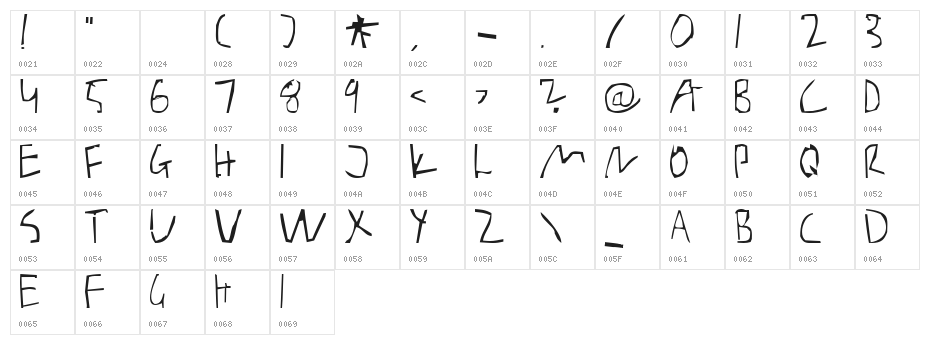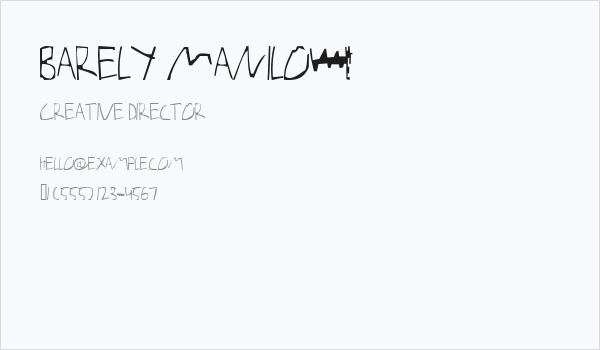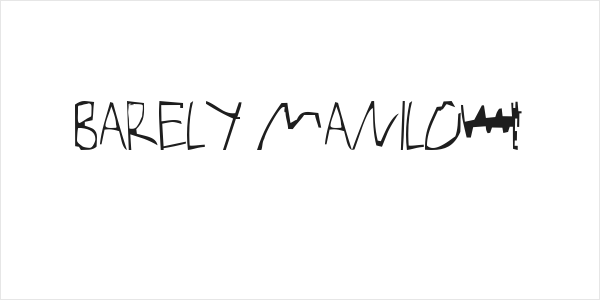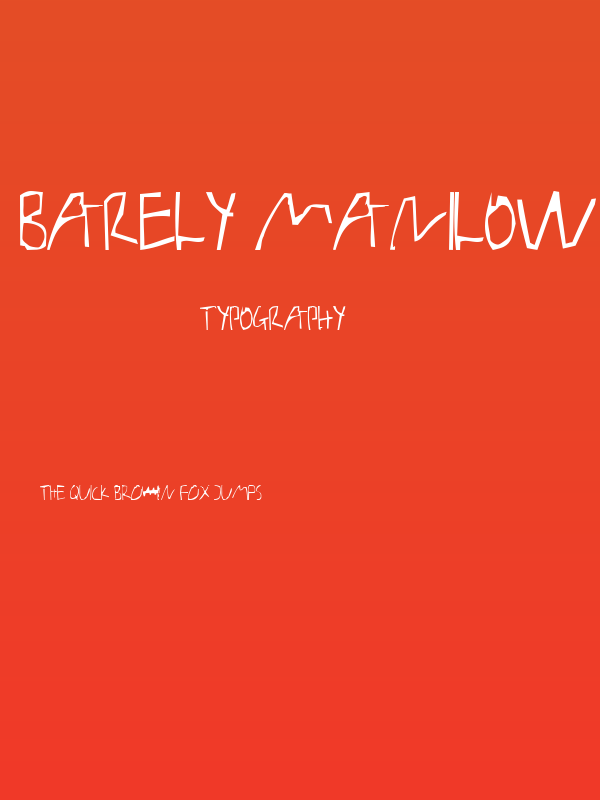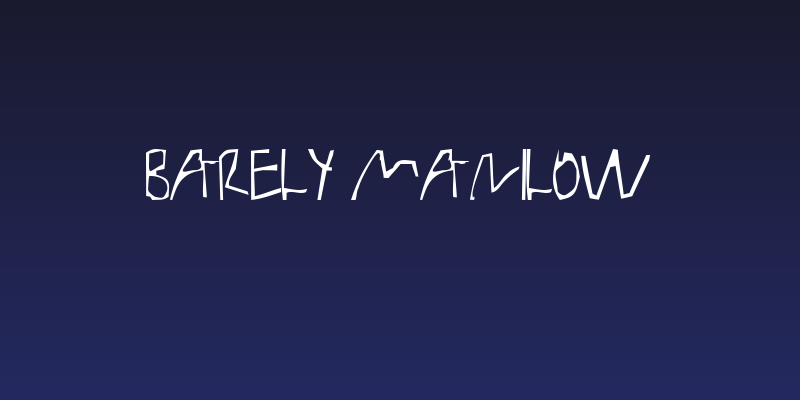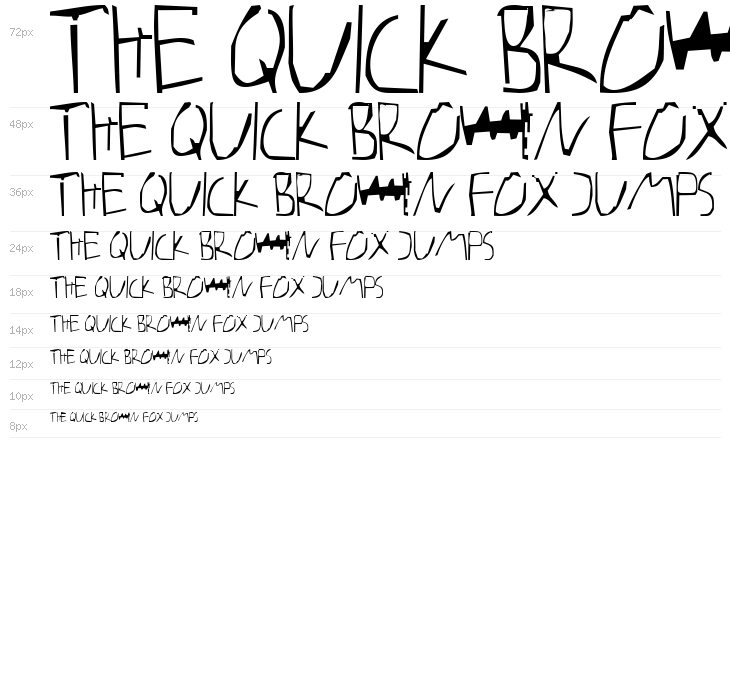
Barely Manilow Font
Barely Manilow Description
This font exhibits a playful and quirky handwritten style, characterized by its irregular and uneven strokes. The letters have a casual, almost whimsical appearance, with varying heights and angles that give it a dynamic and energetic feel. The uppercase and lowercase letters maintain a consistent style, while the numbers and special characters follow the same playful theme. The strokes are bold and prominent, adding to the font's distinctive personality. This font is ideal for projects that require a fun and informal touch, making it suitable for creative and artistic applications.
Use CaseHeadlines, Logos, Creative projects
Proposed ProjectsIdeal for children's books, comic strips, casual invitations, and creative branding.